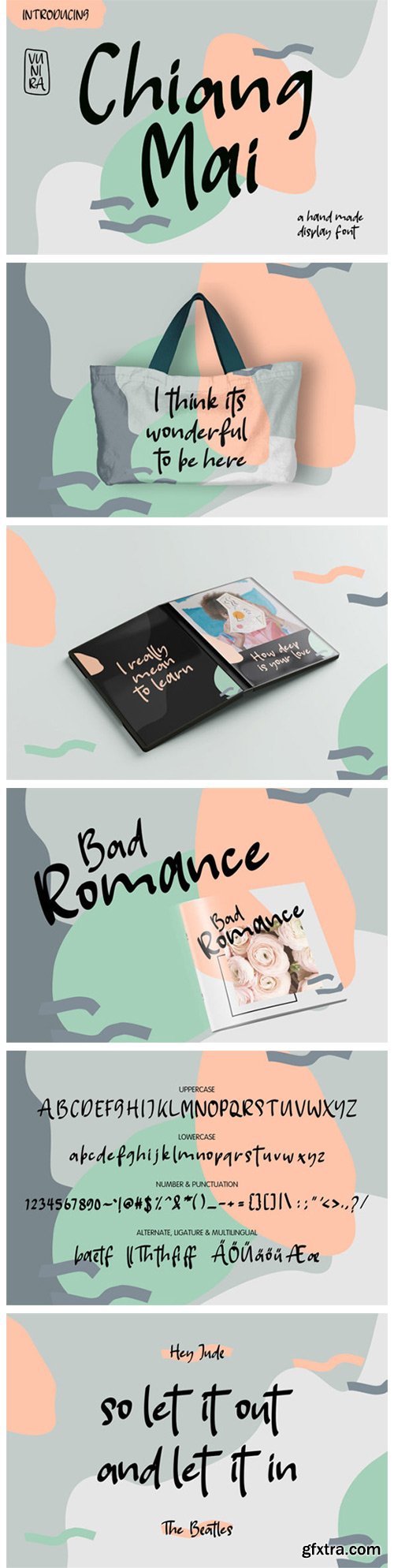
Chiang Mai Font
Chiang Mai is a cute, trendy and neat handwritten font. Its natural and unique style makes it incredibly fitting to a large pool of designs.